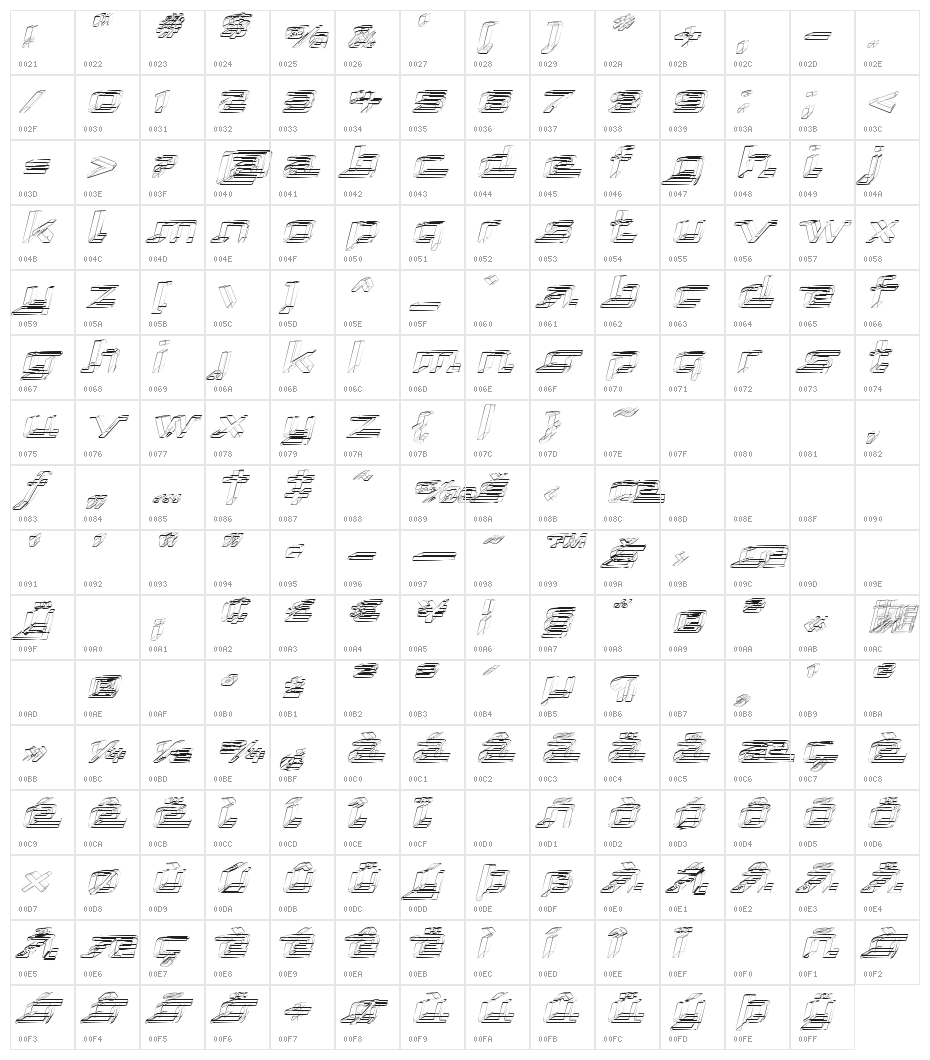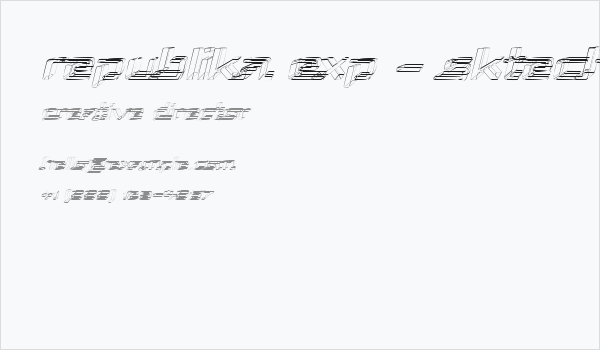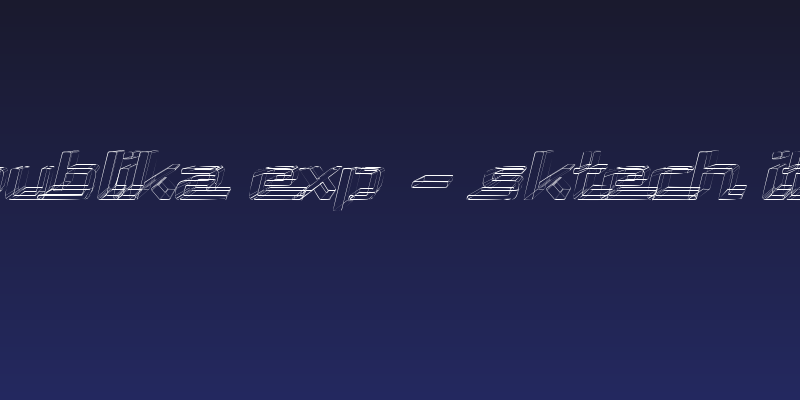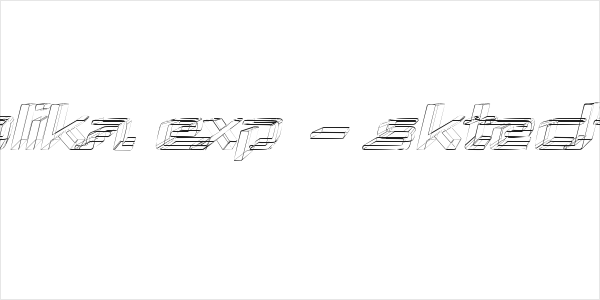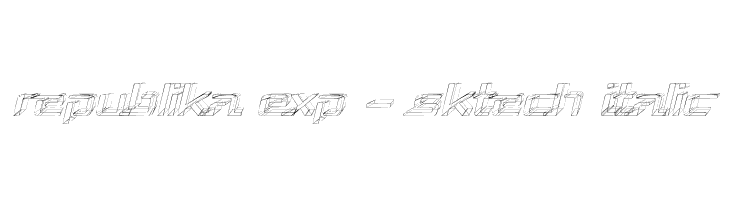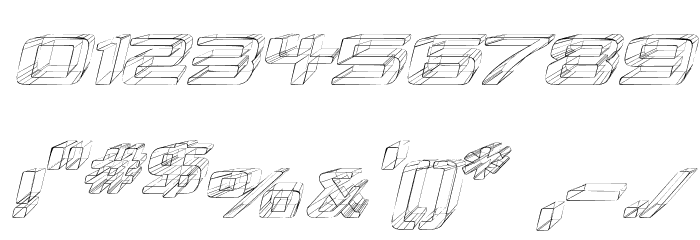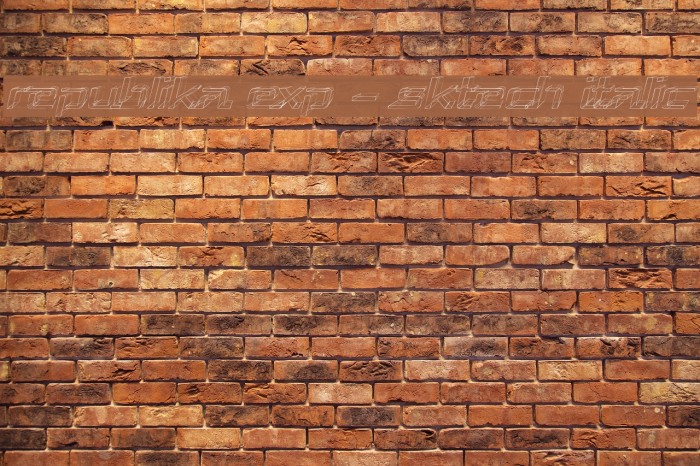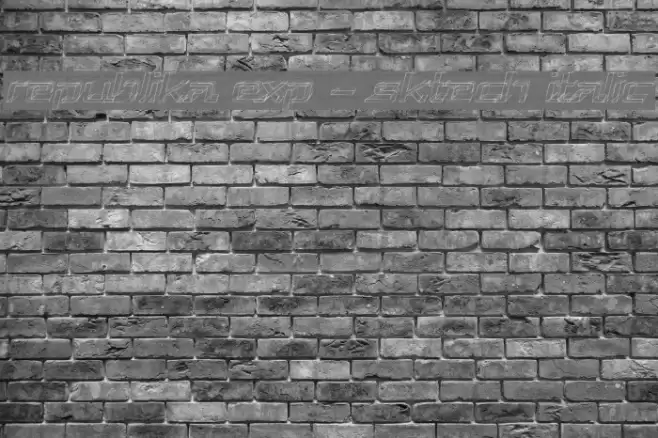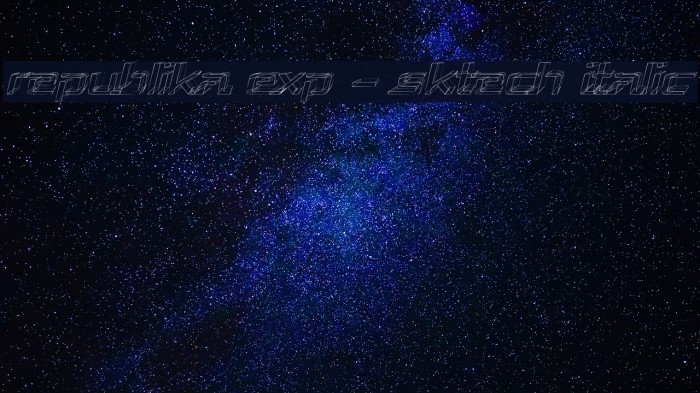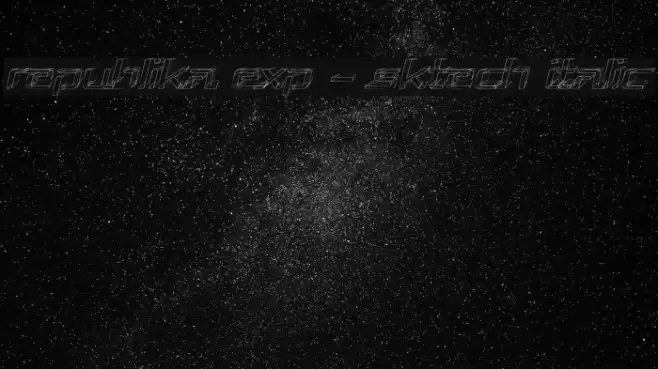
Republika Exp - Sktech Italic Font
Republika Exp - Sktech Italic Description
This font features a dynamic and futuristic design with a sketch-like appearance. The characters are italicized and have an expanded width, giving them a sense of movement and speed. The lines are bold and angular, creating a geometric and technical feel. The font maintains a consistent stroke thickness, resulting in low contrast. Its unique style makes it stand out, with a layered, three-dimensional effect that adds depth and complexity. The font is suitable for projects that require a modern and edgy look, such as technology branding, video game titles, or sci-fi themed designs.
| Width | Expanded |
| Overall Style | Futuristic, Modern |
| Use Case | Logos, Headlines, Posters |
| Proposed Projects | Ideal for technology branding, video game titles, sci-fi themed designs, and modern posters. |